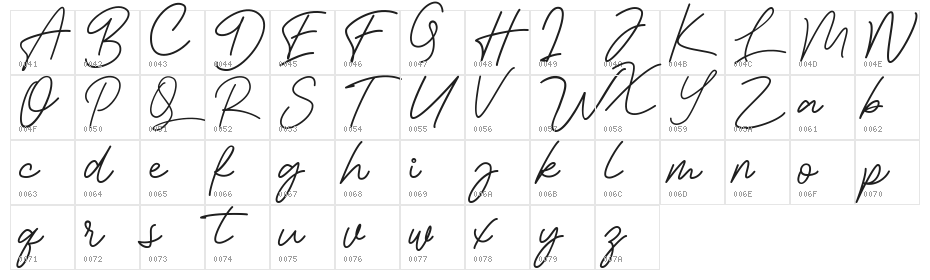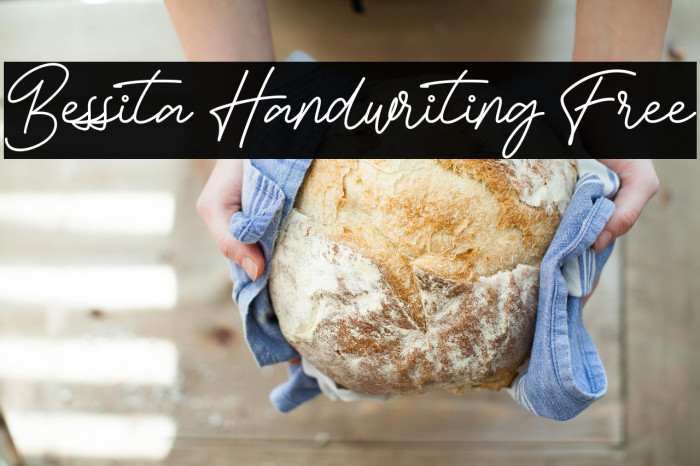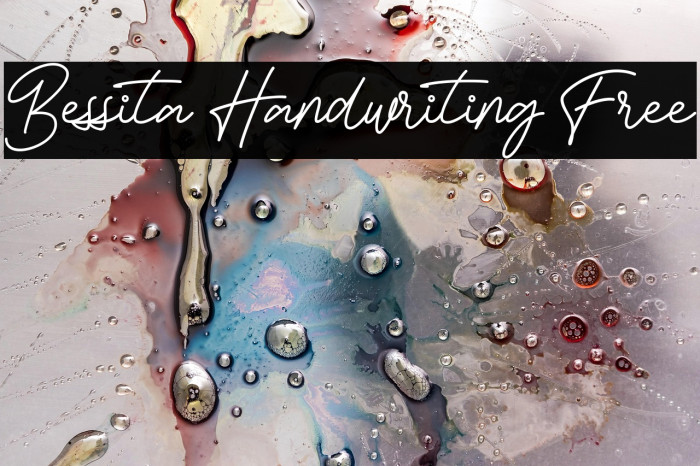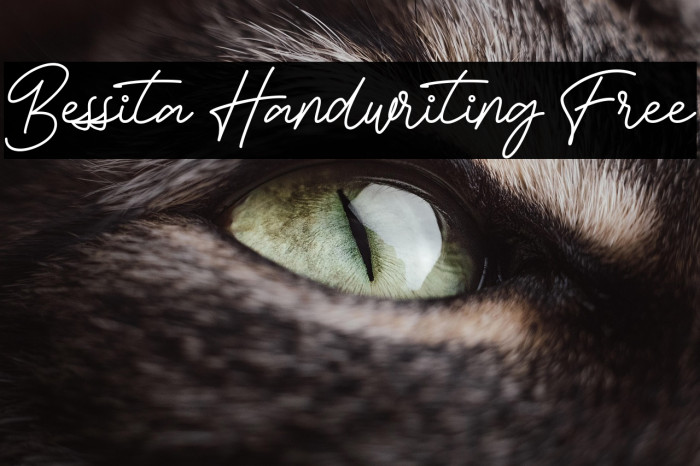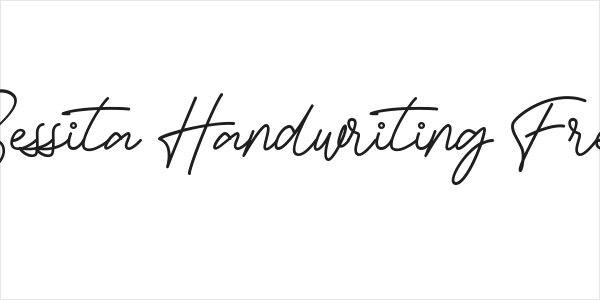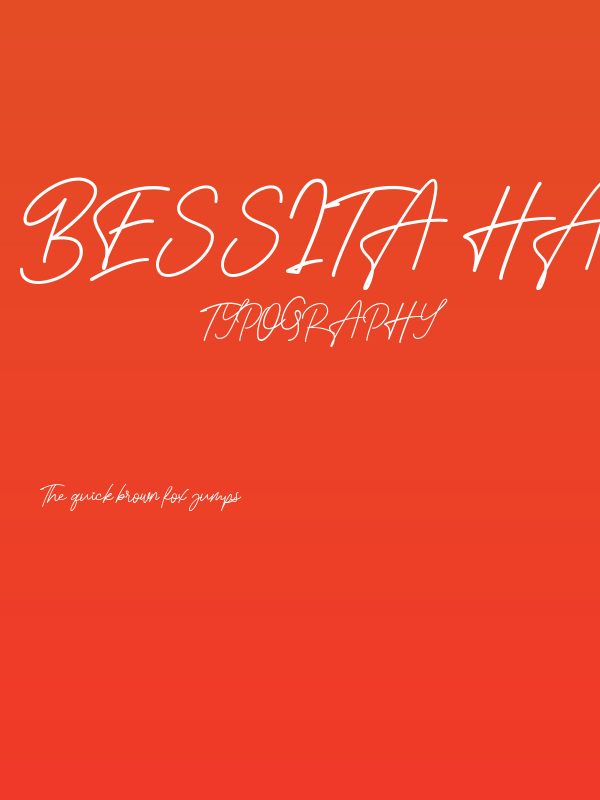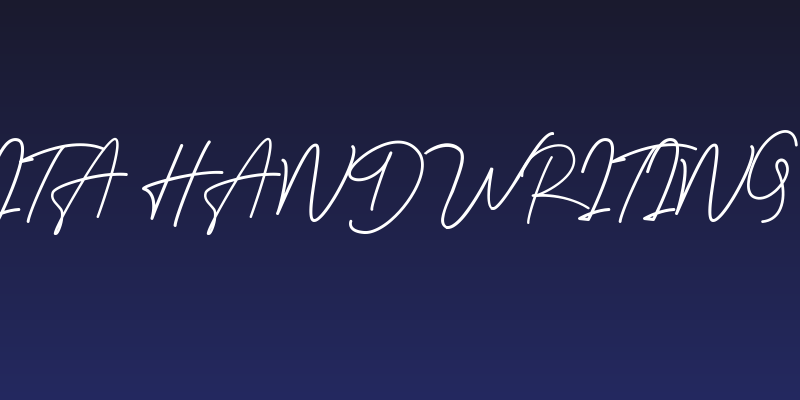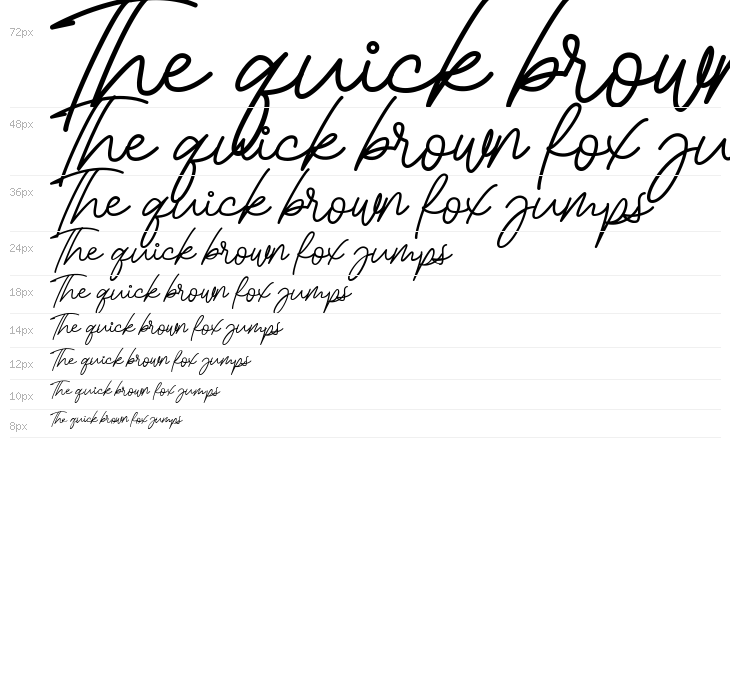
Bessita Handwriting Free Font
Bessita Handwriting Free Description
A flowing, cursive handwriting font with a personal and informal style, featuring connected letters and a natural, handwritten appearance.
| Overall Style | Casual, Personal |
| Use Case | Invitations, Personal notes, Branding |
| Proposed Projects | Invitations, personal notes, branding. |